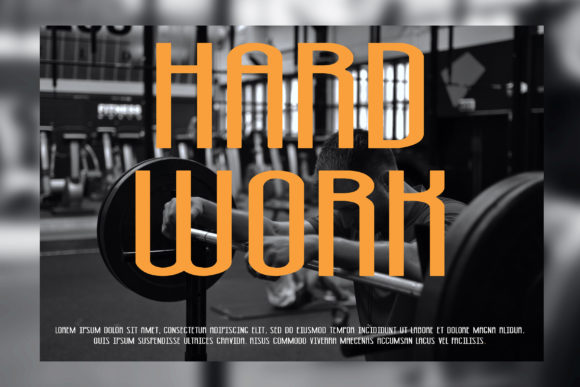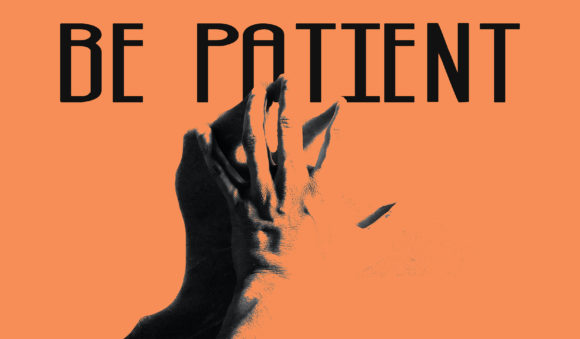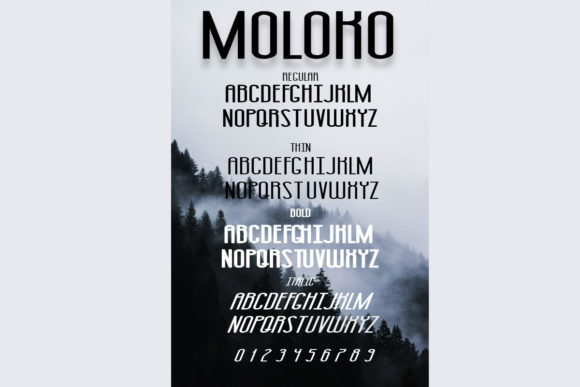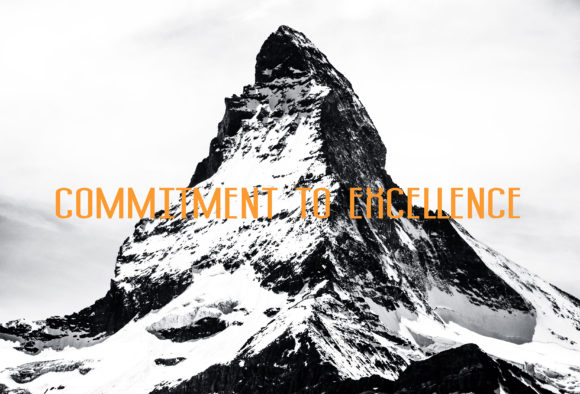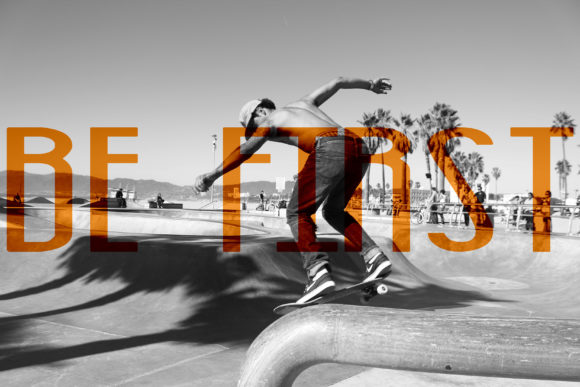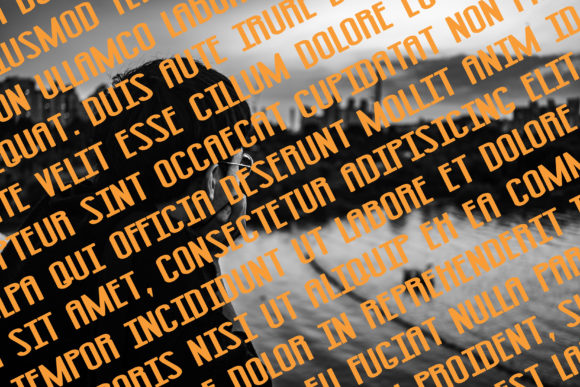
Discover the Versatility of Moloko Font
As designers, we’ve all been there – staring at a blank canvas, trying to bring a vision to life. But sometimes, all it takes is the right tool to spark creativity. That’s where the Moloko Font comes in – a sleek, modern sans serif font that’s waiting to elevate your next project.
With its thin, tall lines and clean design, Moloko Font is the perfect addition to any design resource. Whether you’re working on a high-quality brochure, a free download for a creative project, or a simple website, this font is sure to make a statement. And the best part? Its transparent background makes it easy to integrate into any design, allowing your creative vision to shine through.
As a valuable resource for designers, Moloko Font offers endless possibilities for creative expression. From logos to typography, this font is a game-changer for anyone looking to take their designs to the next level.
Moloko Font
- High-quality design resource for creative projects
- Unique, hand-drawn style with a transparent background, ideal for digital designs
- Perfect for use in logos, branding, and other visual identity elements
- Designed to be versatile and adaptable to various design styles and themes
- Comes with a comprehensive character set, including uppercase and lowercase letters, numbers, and punctuation marks
Honest Review: Moloko Font
As a designer, I’m always on the lookout for high-quality design resources that can elevate my creative projects. The Moloko Font is a great addition to my toolkit.
- ✨ The Moloko Font has a unique, modern aesthetic that’s perfect for minimalist designs.
- ✨ The transparent background option allows for seamless integration with various design elements.
- ⚠️ The Moloko Font doesn’t offer a wide range of font styles, which might limit its versatility.
- ⚠️ Some users may find the font’s modern design too bold or overpowering for certain creative projects.
Overall, I’m impressed with the Moloko Font’s high quality and ease of use. While it may not be the perfect fit for every design project, it’s a great option for modern and minimalist designs. With its transparent background and free download, it’s definitely worth adding to your design arsenal.
Moloko Font
Getting the Most Out of Moloko Font
To get the most out of Moloko Font, use it in creative projects that require a high-quality, unique font. Experiment with different font sizes, colors, and combinations to create visually appealing designs.
Moloko Font is commonly used in graphic design, branding, and marketing materials. It’s also a great choice for creating eye-catching headlines and titles in presentations and documents.
Alternatives to Moloko Font
Comparison to Moloko Font: While Moloko Font has a more playful and modern feel, Pacifico offers a more classic and sophisticated look. Pacifico is ideal for designers who want to convey a sense of luxury and refinement, whereas Moloko Font is better suited for designs that require a more modern and edgy feel.
Great Vibes is a high-quality, script font that is perfect for creative projects that require a fun and energetic feel. It is available for free download and features a transparent background, making it ideal for use on light-colored backgrounds.
Does the Moloko Font have a transparent background?
Yes, the Moloko Font features a transparent background, making it easy to use in a variety of design scenarios. This transparency also allows for seamless integration with other design elements, giving you more creative control over your project.